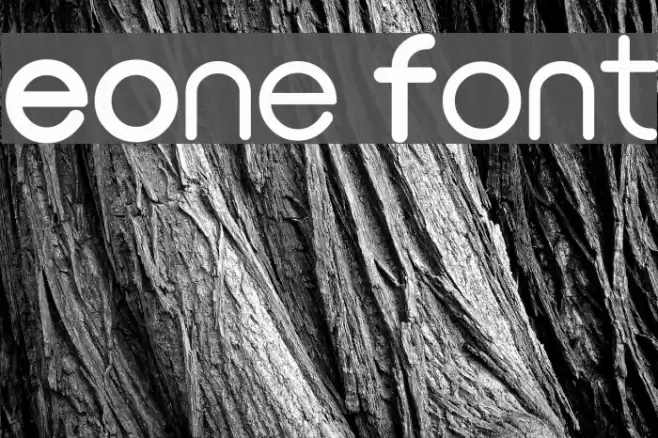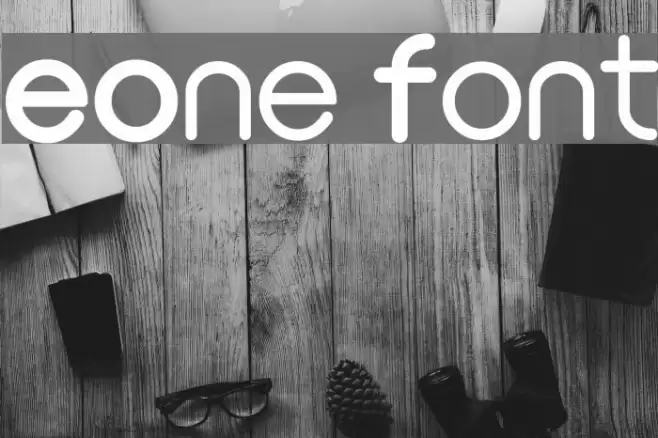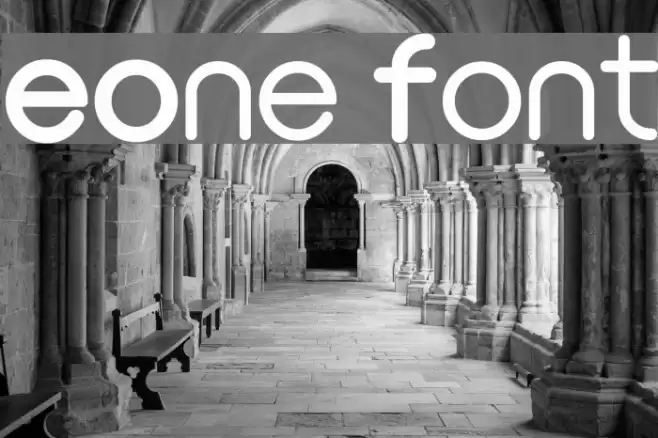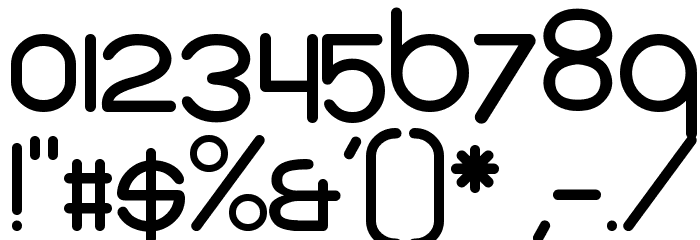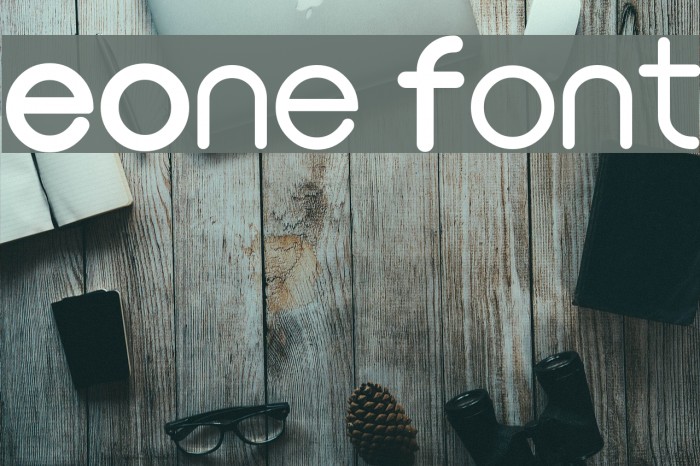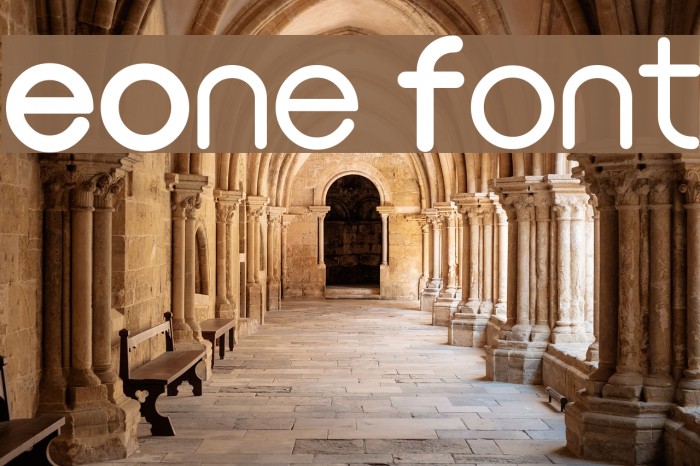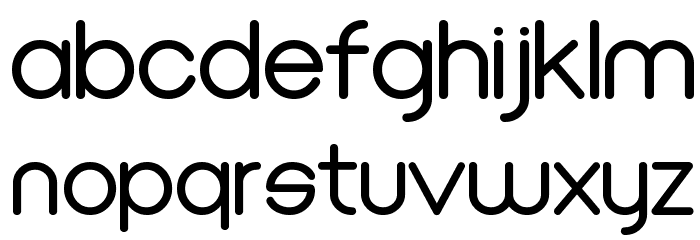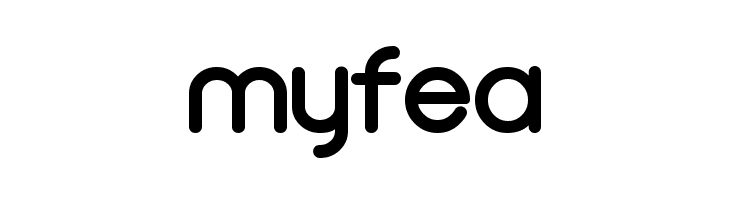
EOne
This font features a modern, rounded sans-serif style with clean lines and a uniform stroke width. The characters are well-balanced, with a geometric structure that gives a contemporary and friendly appearance. The rounded edges soften the overall look, making it approachable and versatile. The numerals and special characters maintain the same rounded aesthetic, ensuring consistency across all glyphs. This font is suitable for digital and print media, offering readability and a sleek design.
A modern, rounded sans-serif font with clean lines and a friendly appearance.